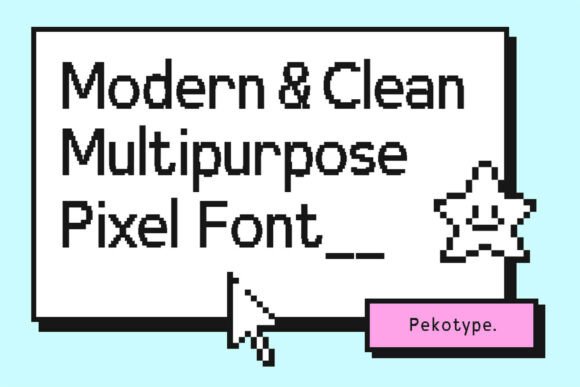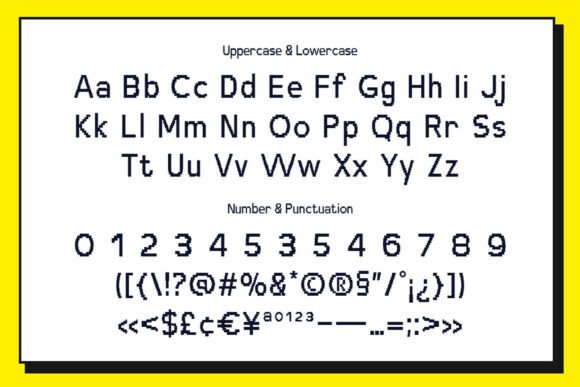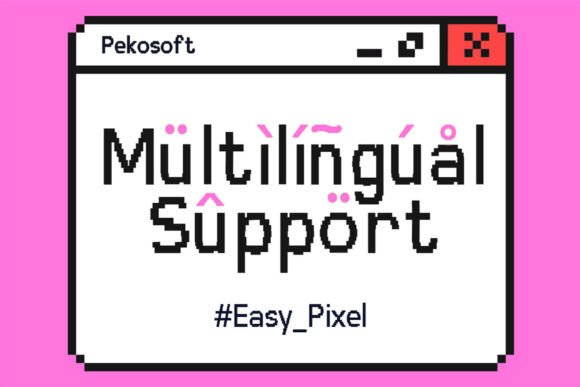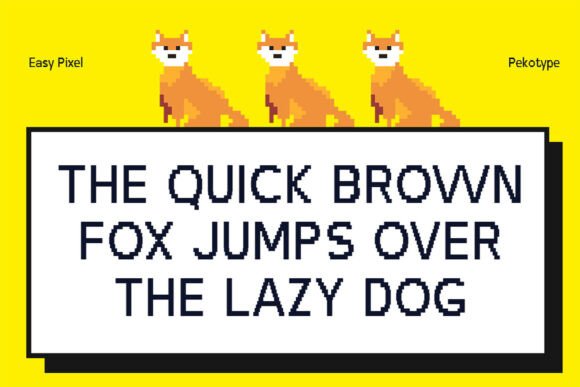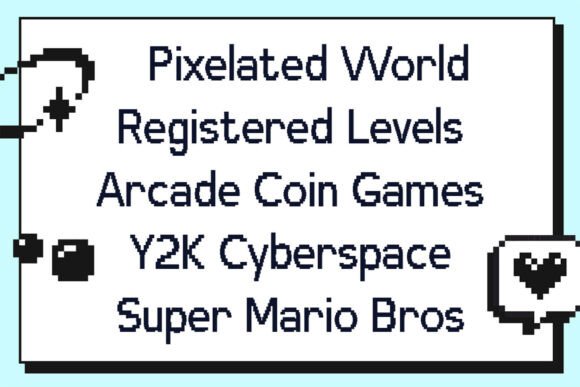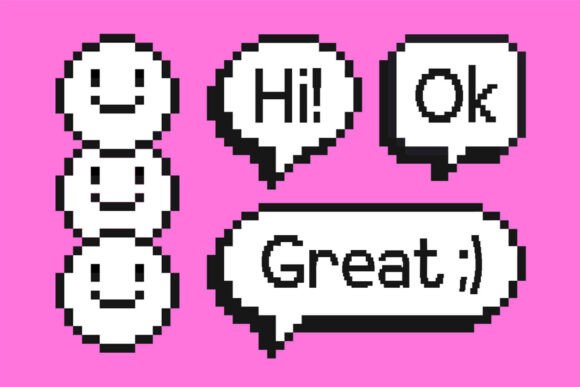
The Retro Charm of Easy Pixel Font: A Designer’s Delight
I still remember the design project that led me to discover the Easy Pixel font. I was working on a retro-style video game-inspired branding campaign, and I was struggling to find the perfect font that would capture the nostalgic feel I was going for. The client wanted something that would transport their audience back to the 8-bit era, but I was coming up blank. That’s when I stumbled upon Easy Pixel, and it was love at first sight! ✨
An Honest Review of Easy Pixel Font
- ✨ Clean and simple pixel-style design that’s perfect for retro-inspired projects
- ✅ Sharp edges and blocky characters that scream old-school charm
- ⚡️ Highly legible, even at small font sizes
- 🎨 Great for creating pixelated branding, 8-bit artwork, or techy digital projects
While Easy Pixel is an amazing font, it’s not without its quirks. 🤔 Here are a few things to keep in mind:
- ⚠️ Limited character set: Easy Pixel is designed for display purposes, so it may not have all the characters you need for body text.
- 🤔 Not ideal for body text: Due to its pixelated nature, Easy Pixel can be a bit tricky to read in large blocks of text.
One of the best things about Easy Pixel is its OpenType features. With a range of glyphs and stylistic alternates, you can add some serious personality to your design. Here are a few tips for getting the most out of these features:
The Designer Inspiration Behind Easy Pixel
According to its creators, Easy Pixel was inspired by the retro video games and old-school computer interfaces of the 8-bit era. The designers wanted to capture the nostalgic feel of this iconic period in design history, and we think they succeeded! 💻
Q: Is Easy Pixel suitable for body text?
A: While Easy Pixel is an amazing font, it’s primarily designed for display purposes. It may not be the best choice for body text due to its pixelated nature and limited character set.